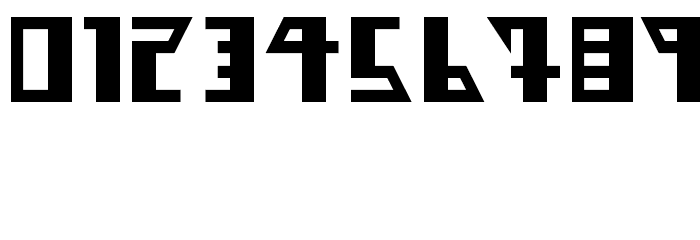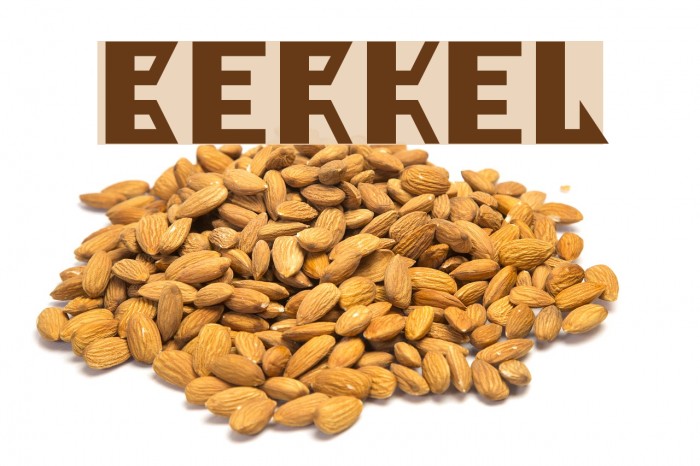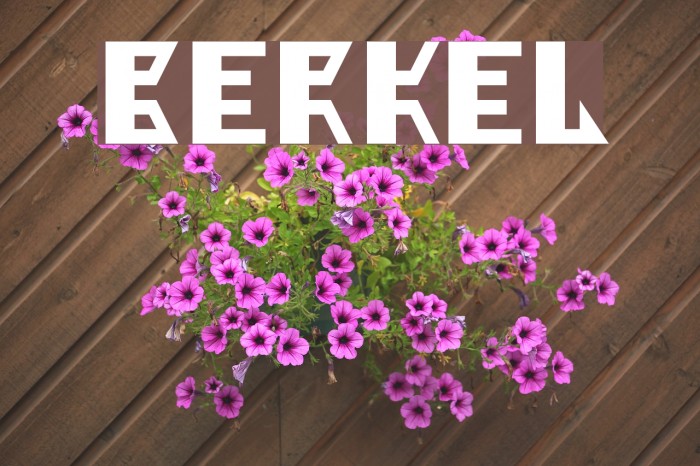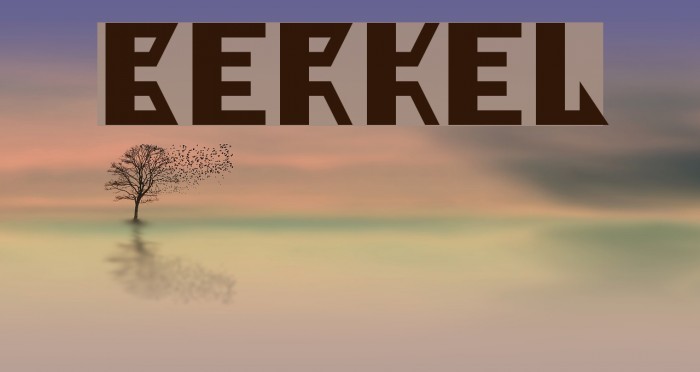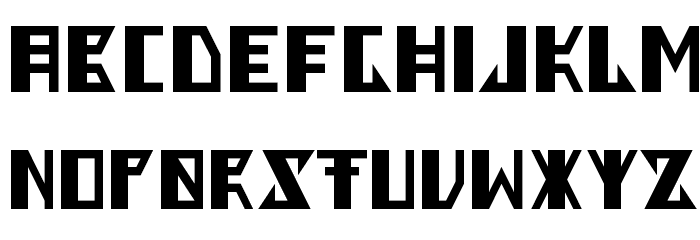
Berkel Font
Berkel Description
This font features a bold and geometric design with sharp angles and a strong presence. The characters are constructed with a mix of straight lines and triangular shapes, giving it a futuristic and edgy appearance. The uppercase letters are particularly striking, with unique cuts and angles that create a sense of movement and dynamism. The numbers follow a similar style, maintaining consistency across the font. This design is highly decorative, making it suitable for attention-grabbing headlines or logos that require a modern and bold statement.
| Proposed Projects | Ideal for use in branding, logos, posters, and any project that requires a modern, eye-catching typeface. |